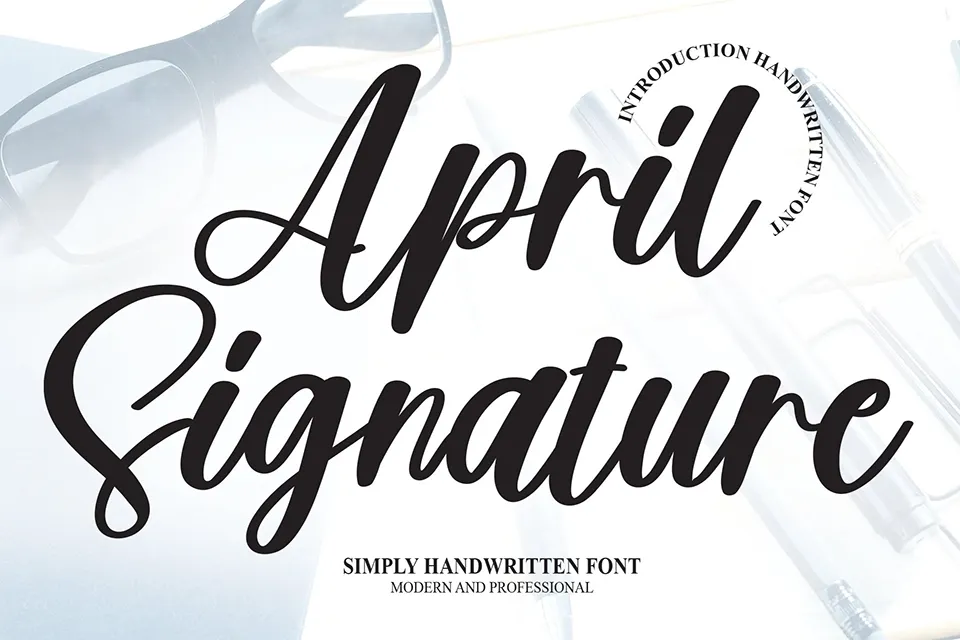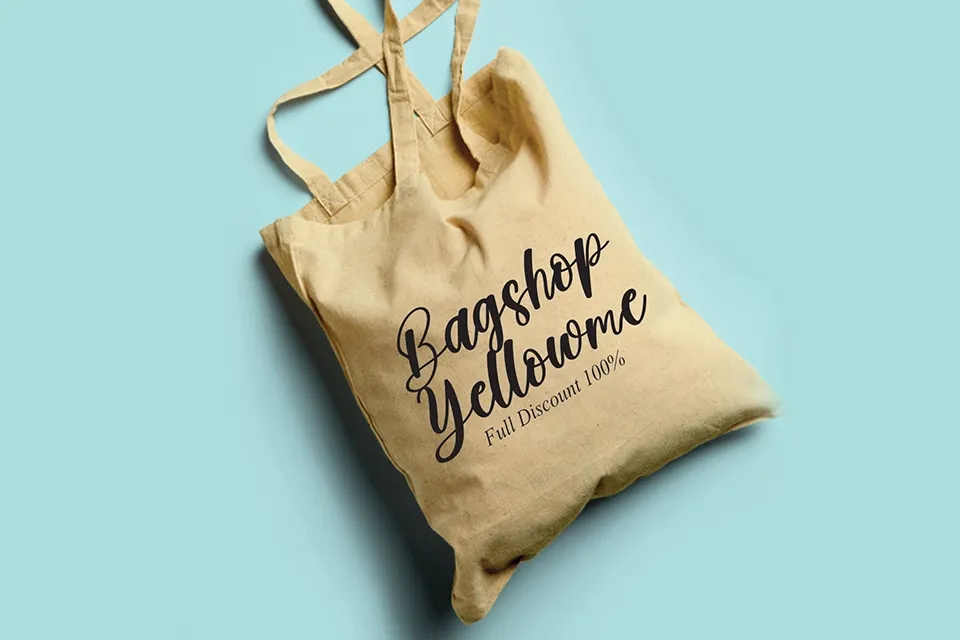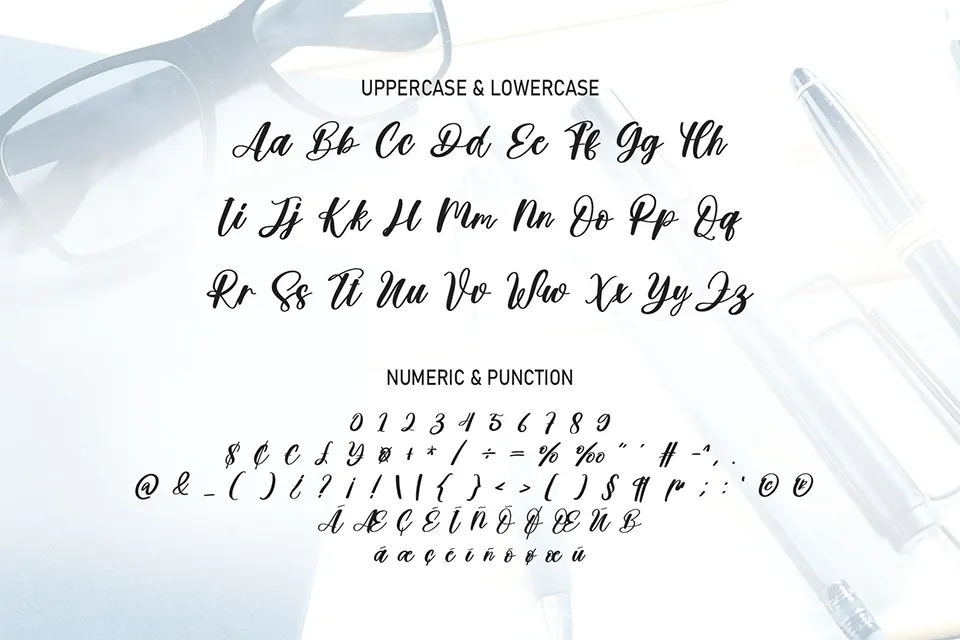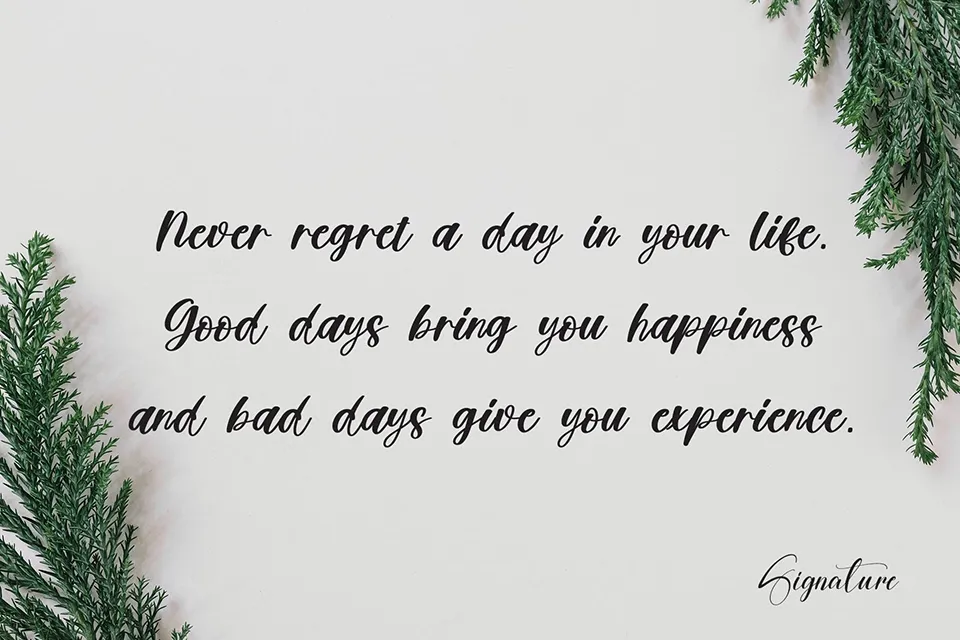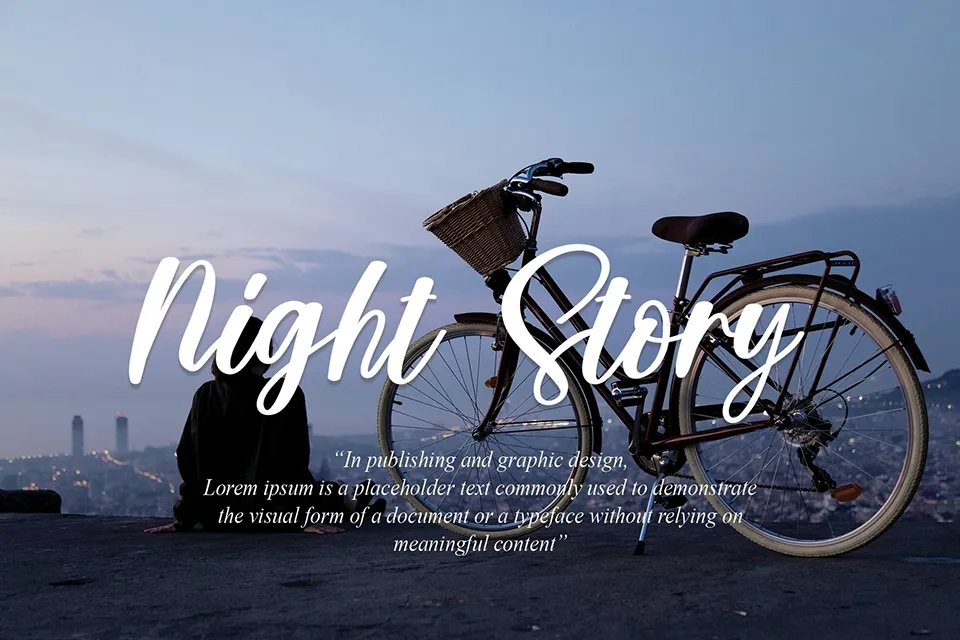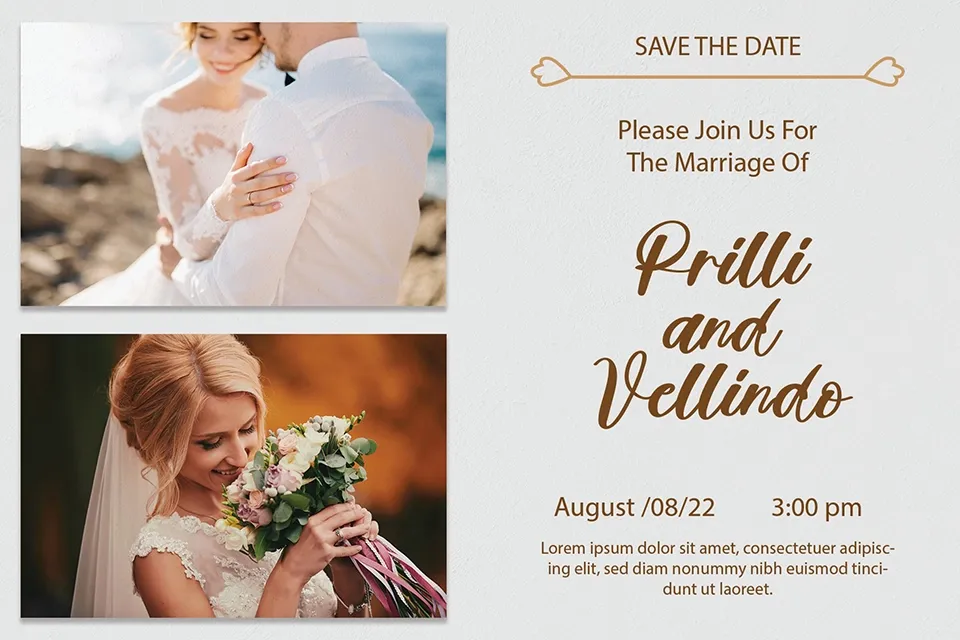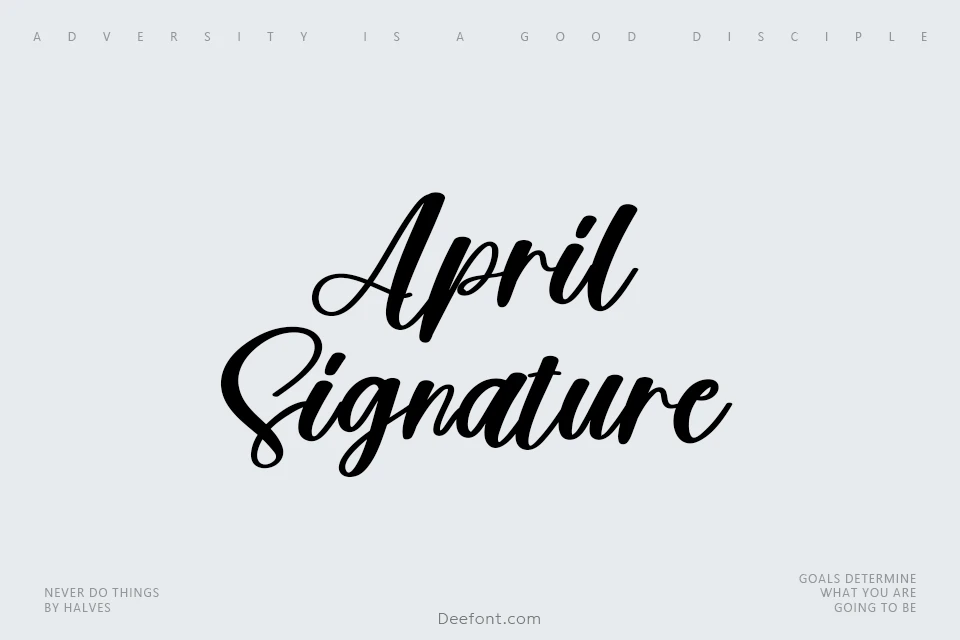
April Signature Font
April Signature Font is a sophisticated handwritten typeface that embodies elegance and professionalism. With its smooth, flowing strokes and stylish curves, this font is perfect for creating standout designs in branding, logos, invitations, and stationery. April Signature combines the charm of personal handwriting with a polished aesthetic, making it versatile for both formal and creative projects. Its modern simplicity ensures readability while adding a unique touch to your work. Whether used for bold headlines or subtle accents, this font brings refinement and personality to every design. Elevate your creations with April Signature Font and make a lasting impression effortlessly.